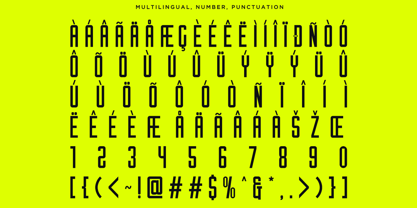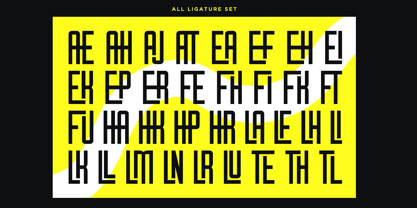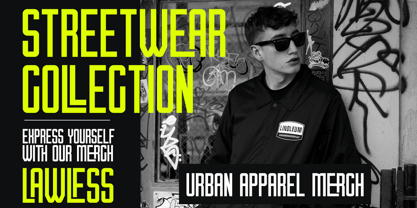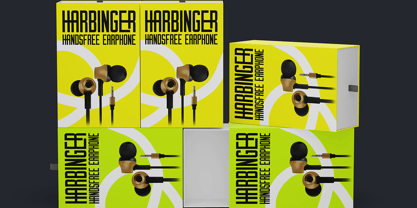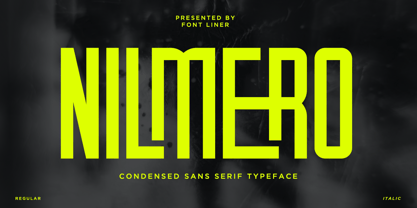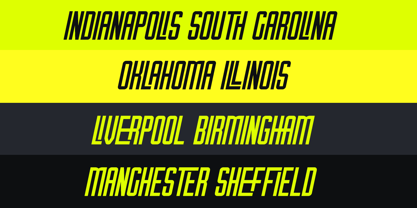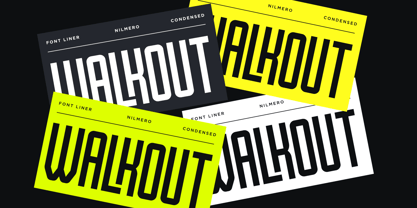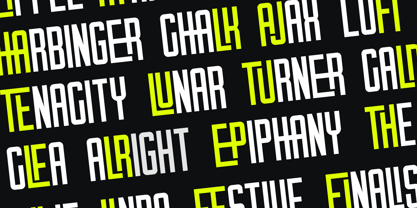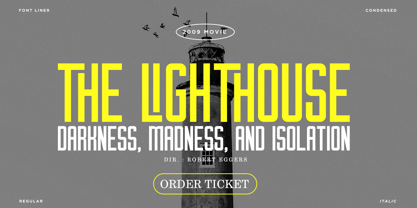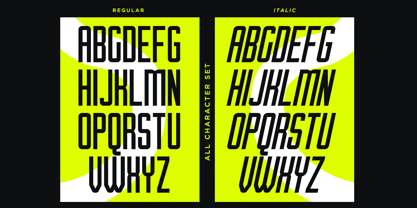
Nilmero
Nilmero is a modern condensed sans font that redefines typographic excellence. With its sleek and contemporary design, Nilmero is the epitome of elegance and functionality, enhanced by an extensive array of meticulously crafted ligatures. Nilmero is a versatile font suitable for a myriad of design applications, including editorial layouts, branding materials, advertising campaigns, and digital interfaces.
Nilmero Included :
- Nilmero
- Nilmero Italic
- Stylistic Alternates
- Multilingual Support